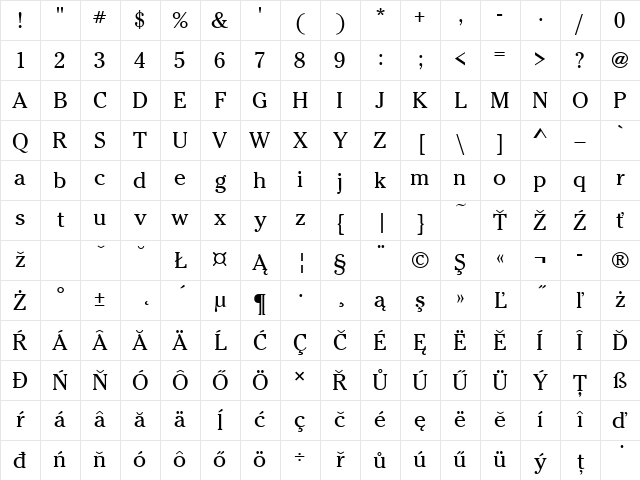
CheltenhamItcTEE Regular
Complete CheltenhamItcTEE Regular glyph index. Displaying only characters natively supported by CheltenhamItcTEE Regular font.
Design Context for CheltenhamItcTEE
CheltenhamItcTEE is a composed and adaptable typeface that performs quietly and consistently across a wide range of design contexts.